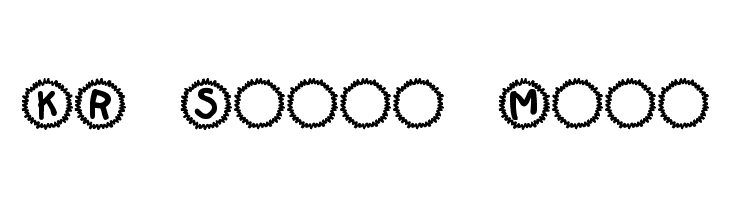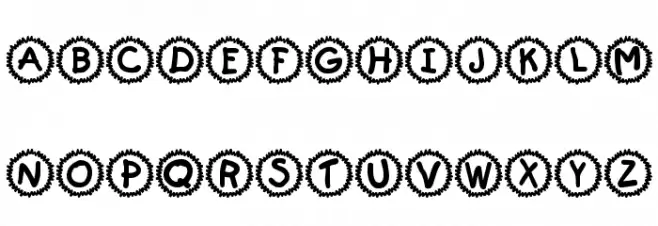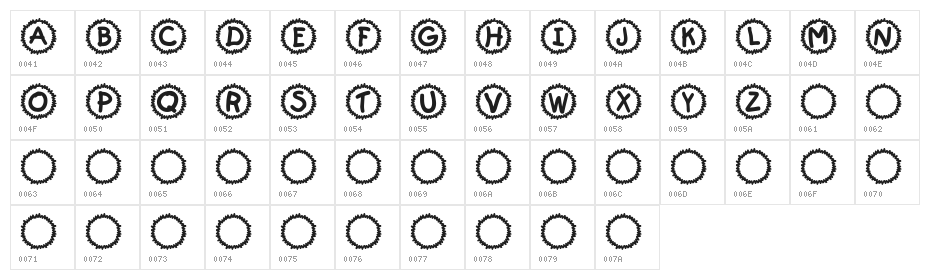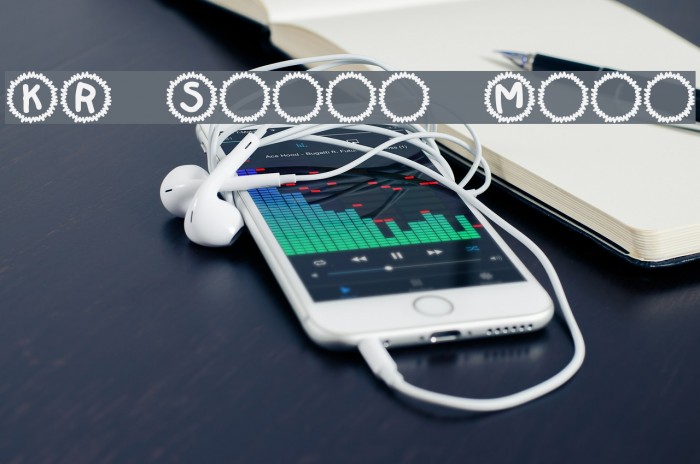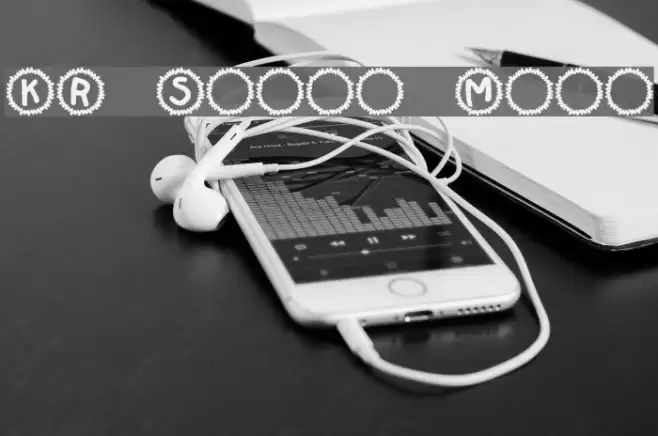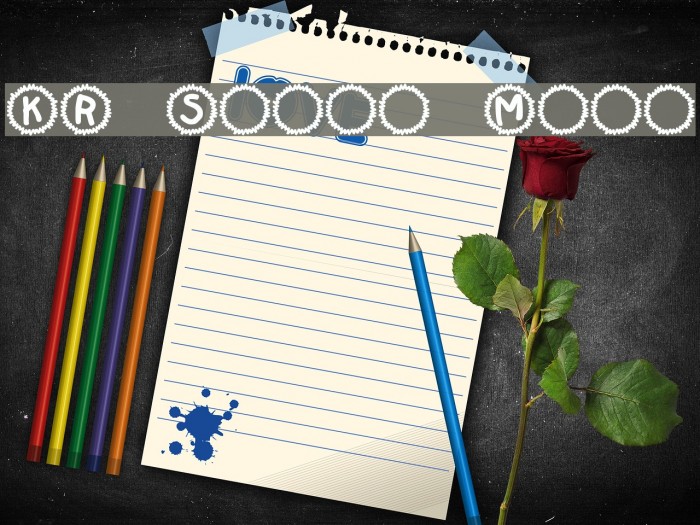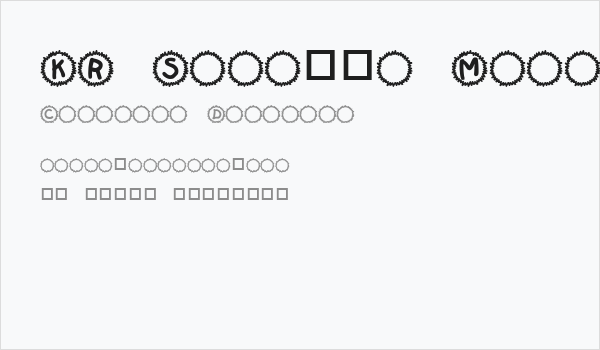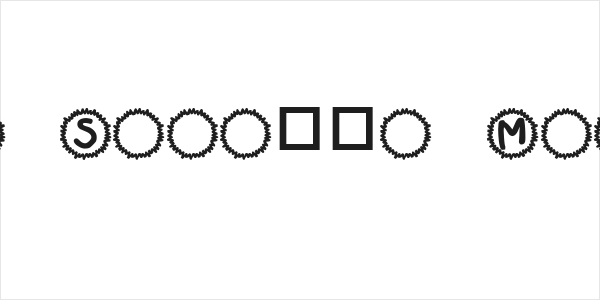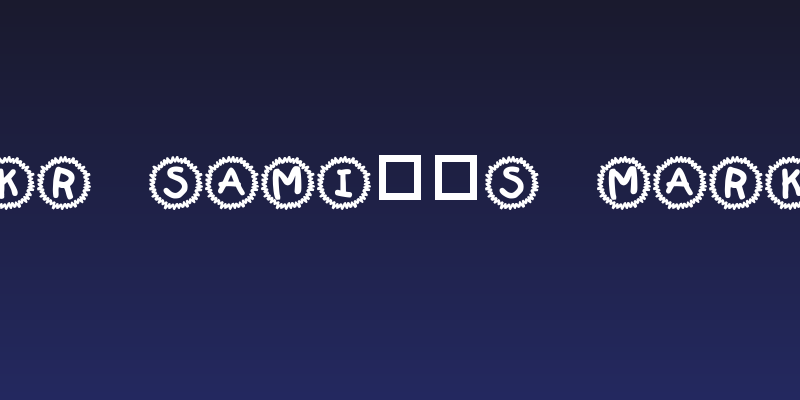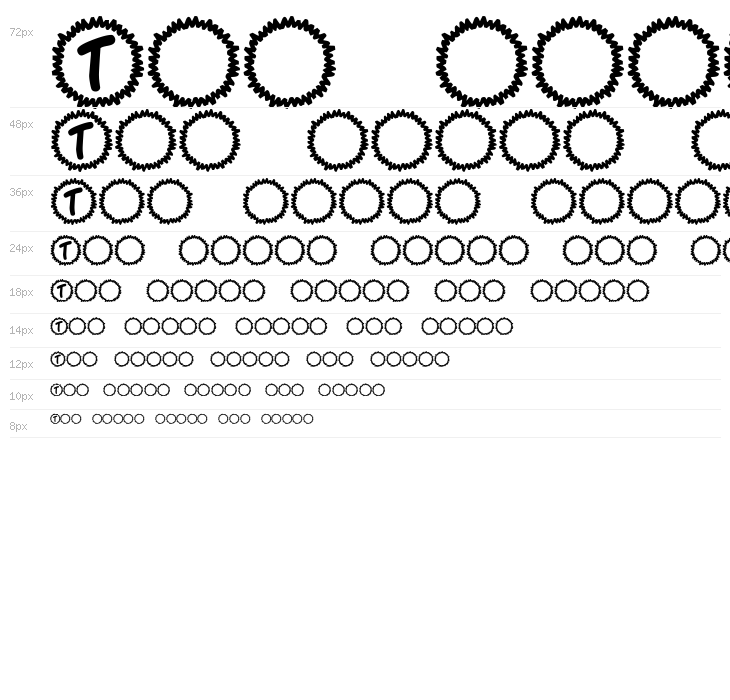
KR Sami's Mark Font
KR Sami's Mark Description
This font features uppercase letters encased in circular, decorative frames that resemble intricate wreaths or floral patterns. Each letter is bold and clear, standing out against the detailed border. The style is playful and artistic, making it suitable for creative projects. The uniformity of the circular frames provides a consistent look, while the boldness of the letters ensures readability. This font is ideal for designs that require a touch of elegance and creativity, such as invitations, greeting cards, or artistic posters.
Proposed ProjectsIdeal for invitations, greeting cards, artistic posters, and creative branding.